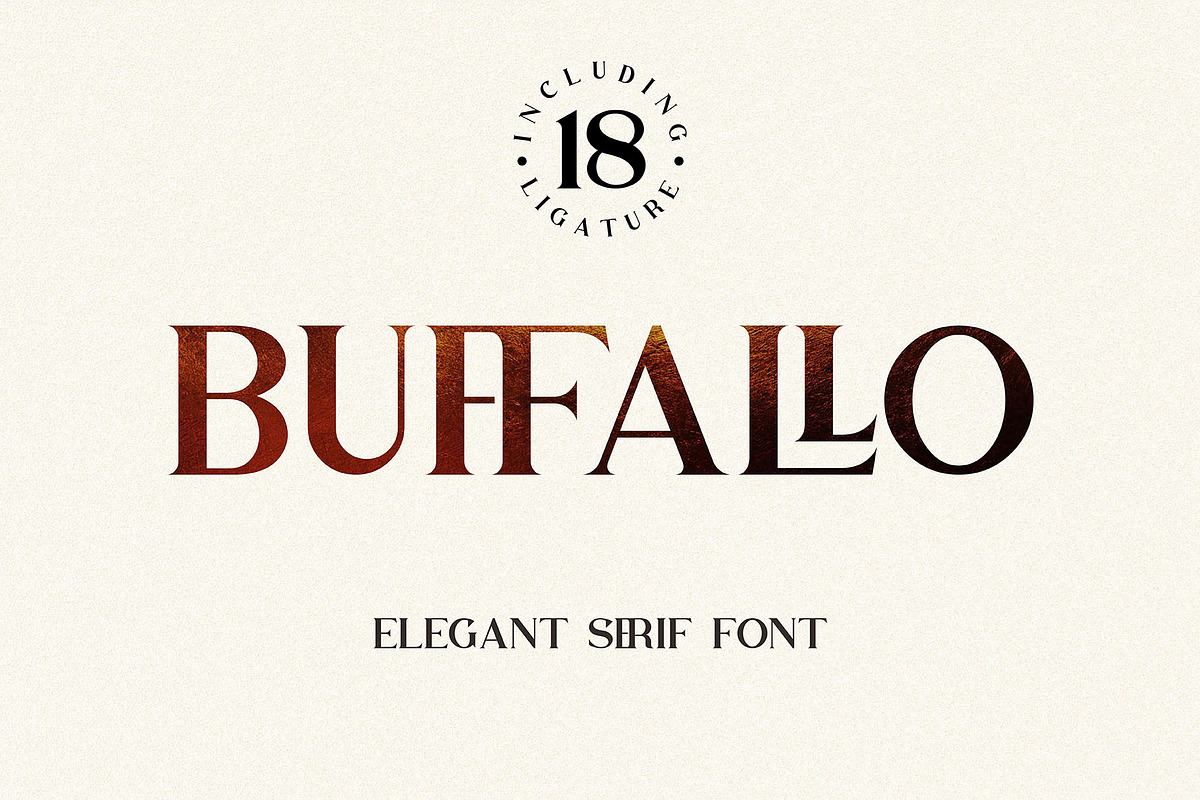
Please note, you must purchase this font for commercial use. However, you can easily download Buffallo - Serif Font Free Download for personal use and testing purposes. Buffallo - Serif Font is a stylish and bold typeface that combines classic serif elements with a modern twist. Perfect for branding, logos, headlines, and editorial designs, this font offers a strong, professional appearance while maintaining a timeless appeal. The distinctive serifs and well-balanced letterforms make Buffallo - Serif Font Free Download ideal for projects that require a sense of elegance and authority. Whether you're designing a luxury brand identity, a sophisticated poster, or any high-end print material, this font brings a touch of refinement to your work. Download Buffallo - Serif Font Free Download today and explore its versatility before deciding on a commercial license.